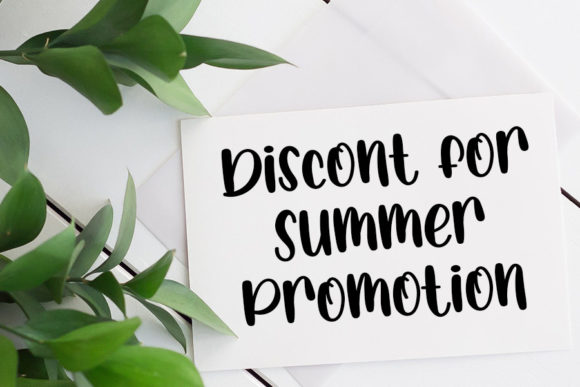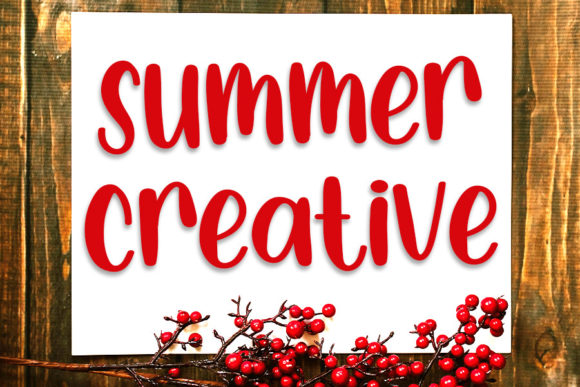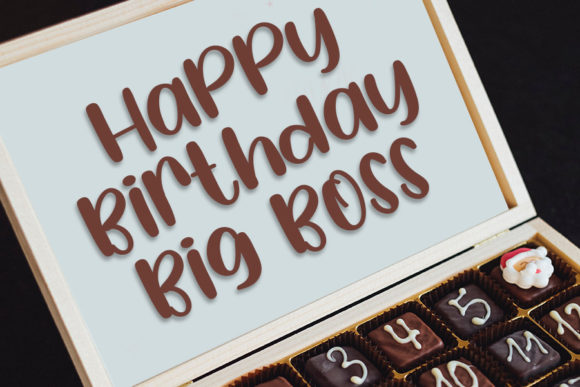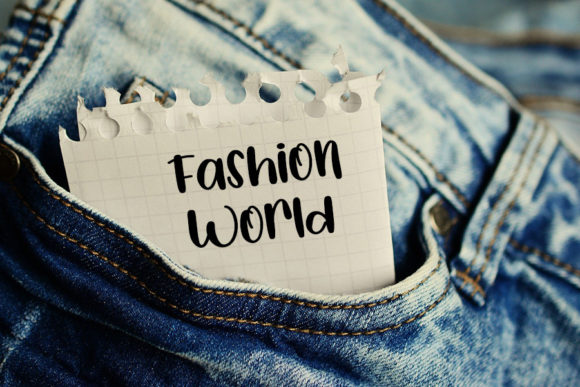
Baby Boss Font: The Ultimate Addition to Your Design Arsenal
In the world of design, fonts play a crucial role in conveying the tone and personality of a project. Whether you’re working on a party invitation, a branding campaign, or a digital graphic, the right font can make all the difference. If you’re on the hunt for a font that exudes youth, joy, and a dash of playfulness, look no further than the Baby Boss Font. In this article, we’ll dive into the world of Baby Boss, exploring its features, benefits, and uses, as well as provide tips on how to make the most of this stunning display font.
What is Baby Boss Font?
Baby Boss Font is a chic and trendy display font designed to add a touch of whimsy and fun to any design project. With its bold, yet elegant lines, Baby Boss is perfect for creating eye-catching headlines, titles, and captions that demand attention. This font is ideal for designers and crafters who want to infuse their work with a sense of youthfulness and playfulness, making it an excellent choice for party invitations, social media graphics, and branding materials.
Key Features of Baby Boss Font
- Unique and Playful Design: Baby Boss Font boasts a distinctive, hand-crafted design that sets it apart from more traditional fonts.
- Highly Versatile: This font can be used for a wide range of design projects, from party invitations and social media graphics to branding materials and digital art.
- Easily Readable: Despite its bold and playful nature, Baby Boss Font remains highly legible, making it perfect for use in titles, headings, and short paragraphs.
- Scalable: Baby Boss Font is designed to look great at any size, from small captions to large headlines.
Benefits of Using Baby Boss Font
So, why should you choose Baby Boss Font for your next design project? Here are just a few benefits of using this amazing font:
- Adds a Touch of Personality: Baby Boss Font allows you to inject your design with a dash of personality and whimsy, setting it apart from more generic and boring fonts.
- Perfect for Youth-Oriented Designs: If you’re working on a project aimed at a young audience, Baby Boss Font is an excellent choice, as it speaks directly to this demographic.
- Easy to Pair with Other Fonts: Baby Boss Font pairs well with a wide range of other fonts, making it easy to create visually appealing and harmonious typography.
Using Baby Boss Font in Your Designs
Now that we’ve covered the features and benefits of Baby Boss Font, let’s explore some practical ways to use this amazing font in your designs:
- Party Invitations: Add a touch of whimsy and fun to your party invitations with Baby Boss Font, perfect for kids’ birthday parties, baby showers, and more.
- Social Media Graphics: Use Baby Boss Font to create eye-catching social media graphics that demand attention and drive engagement.
- Branding Materials: Incorporate Baby Boss Font into your branding materials, such as logos, business cards, and brochures, to add a touch of personality and whimsy.
Tips for Getting the Most Out of Baby Boss Font
To make the most of Baby Boss Font, here are a few tips to keep in mind:
- Use it Sparingly: While Baby Boss Font is perfect for headlines and titles, it’s best to use it sparingly to avoid overwhelming your design.
- Pair it with Contrasting Fonts: Pair Baby Boss Font with contrasting fonts to create visually appealing and harmonious typography.
- Experiment with Colors: Don’t be afraid to experiment with different colors and textures to add depth and interest to your design.
In conclusion, Baby Boss Font is a chic and trendy display font that’s perfect for designers and crafters looking to add a touch of youth and joy to their work. With its unique and playful design, high versatility, and ease of use, Baby Boss Font is an excellent addition to any design arsenal. Whether you’re working on party invitations, social media graphics, or branding materials, Baby Boss Font is sure to make your designs stand out from the crowd.